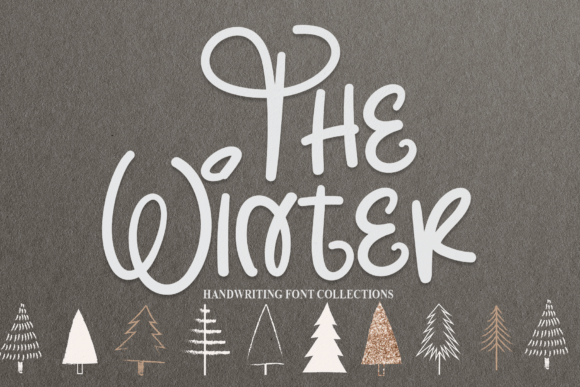
Welcome to the world of The Winter Font family, an extraordinary script font designed to turn your creative visions into breathtaking realities. Inspired by the beauty of winter's calligraphy, our font weaves a tapestry of elegance and modernity, perfect for adding a touch of sophistication to all your designs.
As a masterpiece of artistry crafted by the renowned Misterletter.co, The Winter Font has garnered accolades as the Best Font for Logo Design 2014, a testament to its enduring charm and versatility. Its seamless fusion of classic calligraphy with a modern, fresh aesthetic has made it a top choice for designers and artists worldwide.
Step into a realm of endless creative possibilities, where The Winter Font family elevates your projects to new heights. Let its graceful strokes dance across your designs, evoking a sense of timeless beauty and captivating allure. Each letter, meticulously crafted with love and attention to detail, carries the warmth of a handwritten note, leaving an indelible mark on the hearts of your audience.
With The Winter Font family by your side, you'll embark on a creative journey like no other. Transform ordinary designs into extraordinary masterpieces, captivating the eyes and leaving an unforgettable impression. From logos that exude professionalism to wedding invitations that radiate romance, The Winter Font is your gateway to a world of endless creative possibilities.
Don't let this opportunity pass you by. Embrace The Winter Font family today and experience the transformative power of beautiful typography. Let your creativity soar, let your imagination run wild, and let The Winter Font family guide you on your journey to design greatness.